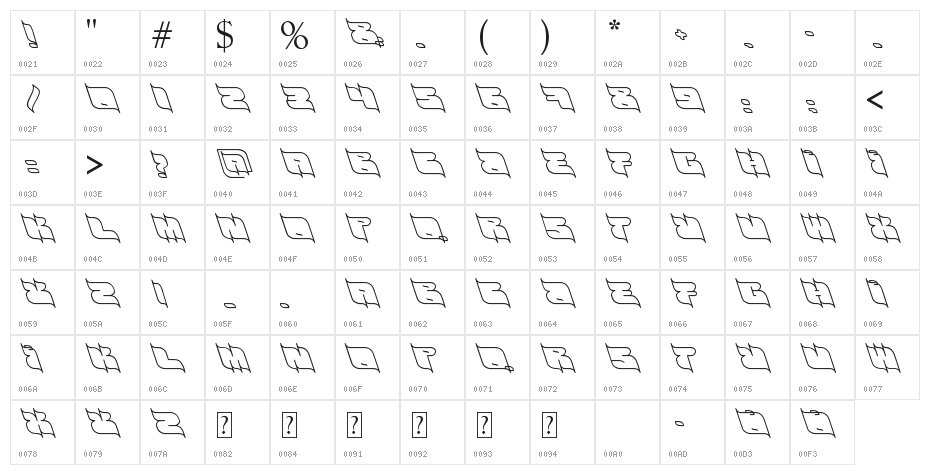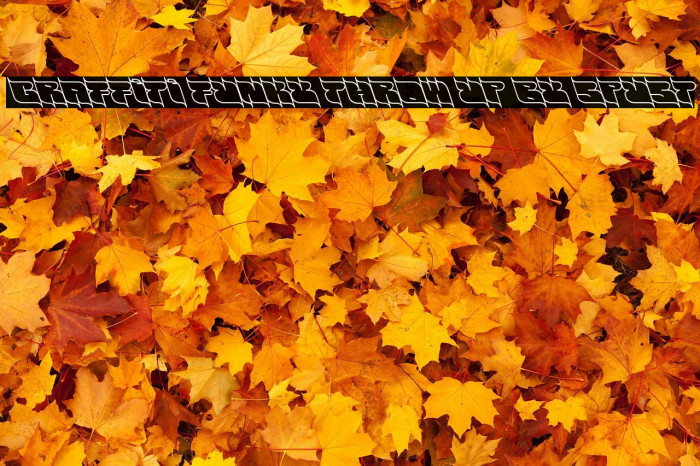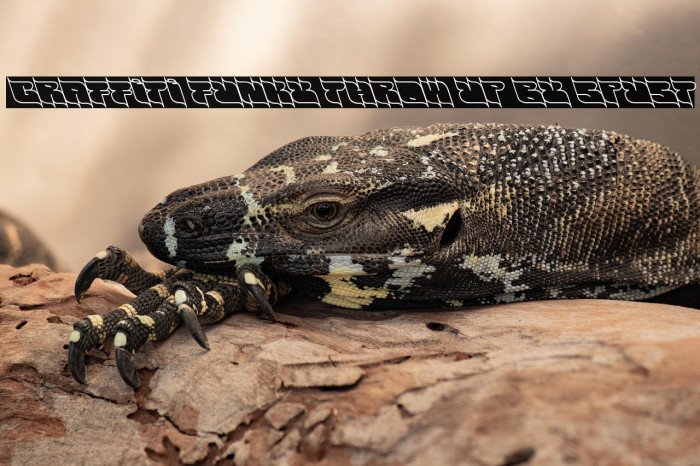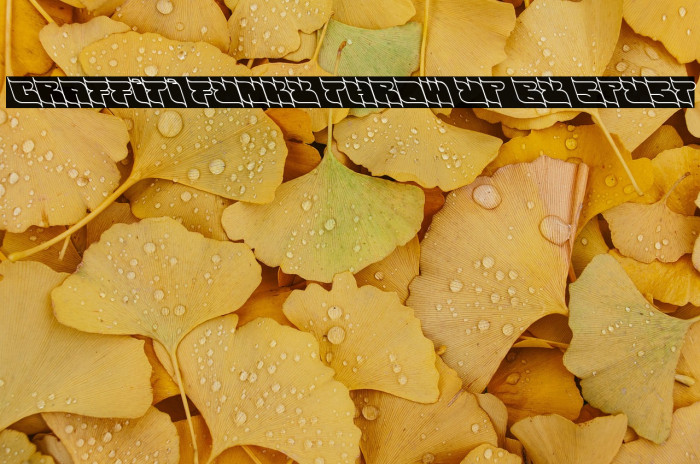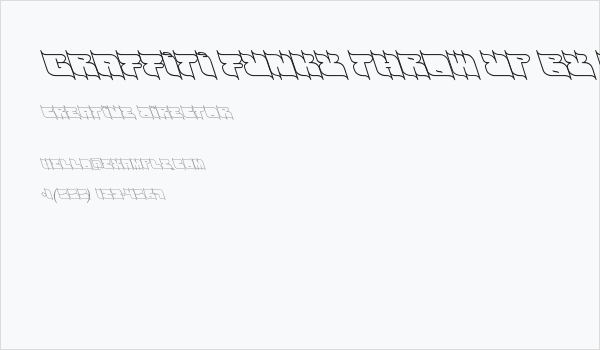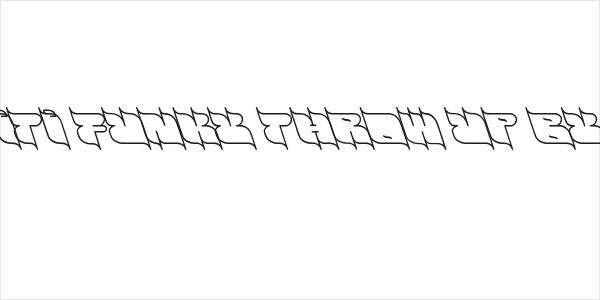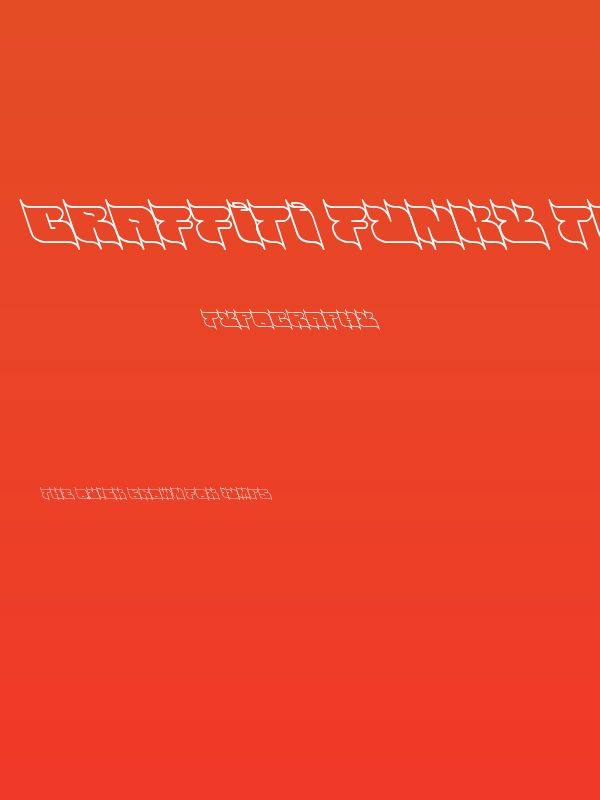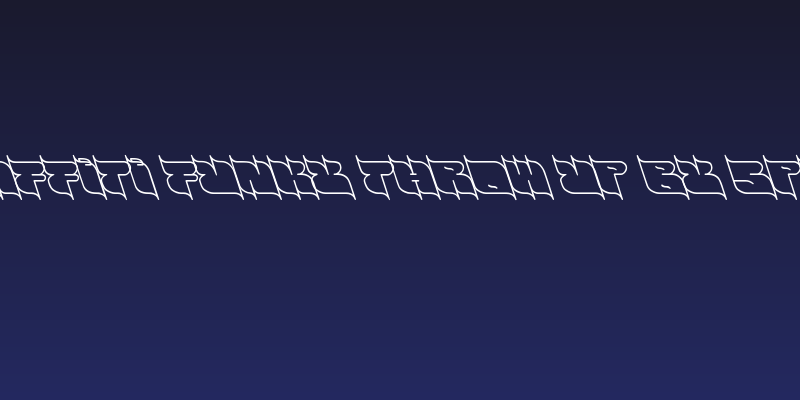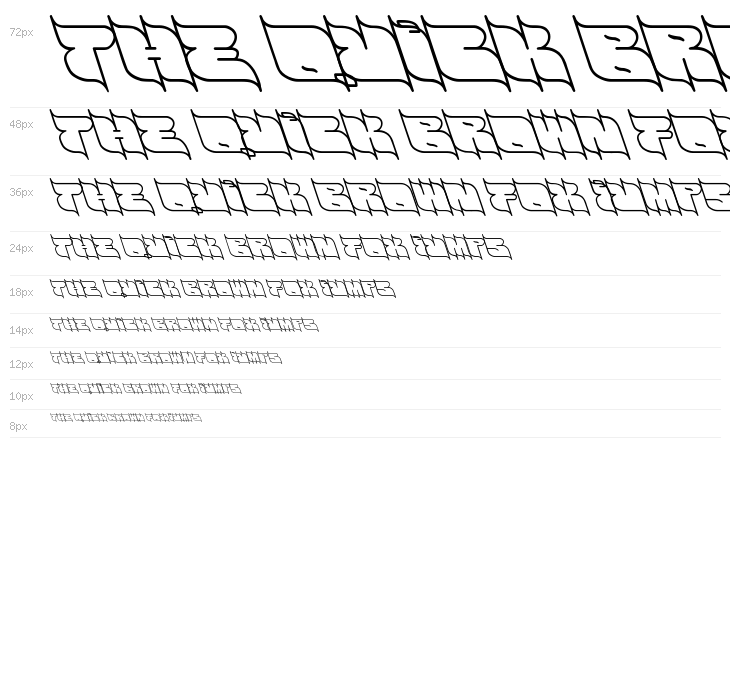
graffiti funky throw up by spust Font
graffiti funky throw up by spust Description
This font embodies a bold and dynamic graffiti style, characterized by its thick, angular lines and sharp edges. Each character is designed with a sense of movement and energy, reminiscent of urban street art. The uppercase and lowercase letters maintain a consistent style, with exaggerated curves and a playful, rebellious flair. The numbers and special characters follow suit, adding to the font's cohesive and striking appearance. This font is perfect for projects that aim to capture the essence of street culture and urban expression.
| Overall Style | Modern, Urban |
| Use Case | Logos, Posters, Merchandise |
| Proposed Projects | Ideal for urban-themed designs, streetwear branding, music album covers, and graffiti art projects. |